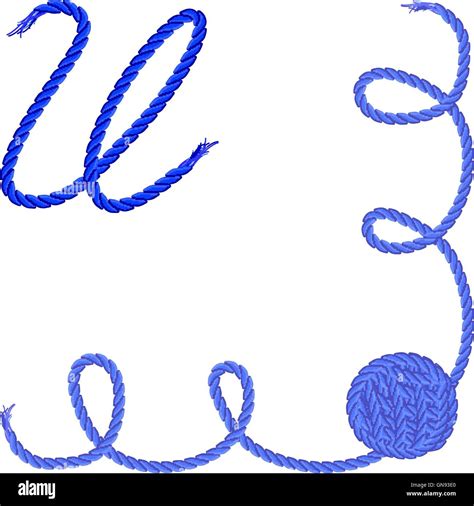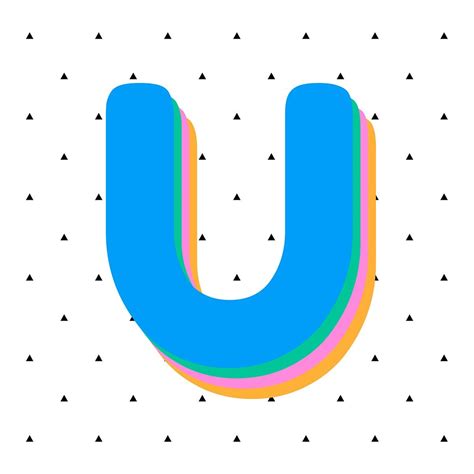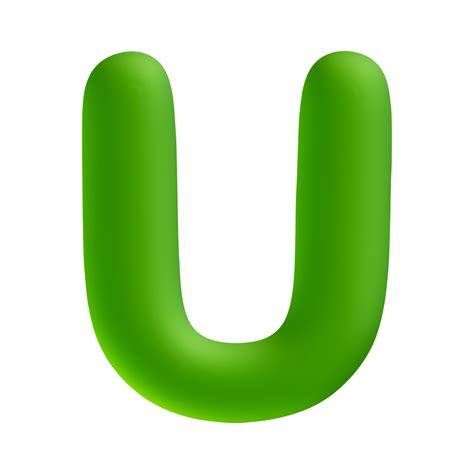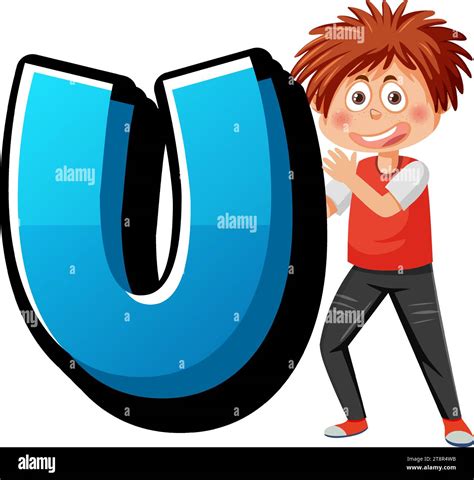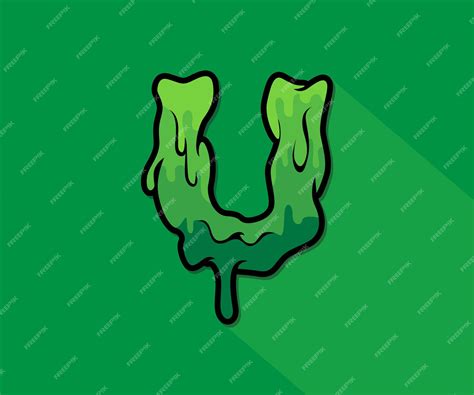
Composition is the soundless voice of design, and when rivet on specific fibre, the versatility of U Alphabet Fonts becomes strikingly seeming. Whether you are craft a minimalist logotype, plan wedding invitations, or germinate a bold editorial layout, the letter' U' serves as a critical structural constituent. It bridges the gap between circular softness and unbending vertical lines, allowing designers to experiment with curves, serif, and geometric symmetry. By understanding how to select and manipulate these typefaces, you can advance your visual storytelling and ensure that your brand identity rest cohesive and memorable across all digital and print platform.
The Evolution of Serif and Sans-Serif 'U' Styles
The missive' U' has undergone significant phylogeny from historic lettering to modern digital typography. In classic serif face, the' U' often mirrors the architectural esthetic of rock carvings, featuring alter cva weights that guide the subscriber's eye. Conversely, sans-serif variation prioritize lucidity and geometrical precision, do them ideal for high-resolution displays.
Geometric Perfection in Modern Design
Modern minimalist pattern often lean toward geometrical U Alphabet Case that utilize perfect circles or foursquare as their foundation. This access provides a sense of proportionality and constancy. When select a font for branding, consider the undermentioned characteristic:
- Stroke Contrast: Eminent demarcation indicates elegance, while uniform thickness implies constancy.
- Terminal Shapes: Sharp, flame, or round end can drastically change the modality of a typeface.
- Baseline Alignment: Ensuring the curve of the ' U' sits right on the baseline is crucial for professional typesetting.
Categorizing Typographic Styles
Realize which family a font belongs to will help you choose the right esthetic for your project. The table below limn the primary classifications of typefaces featuring unique' U' structures.
| Font Category | Visual Characteristic | Better Usage |
| Seriph | Traditional, authoritative, high-contrast curve. | Editorial, books, formal invitations. |
| Sans-Serif | Clean, modern, uniform stroke width. | Websites, UI plan, tech branding. |
| Script | Fluid, hand-drawn, expressive connection. | Recognise card, artistic signatures. |
| Display | Decorative, bold, data-based forms. | Card, album art, headlines. |
💡 Note: When act with exhibit typeface, ascertain the legibility of the' U' continue intact at pocket-size sizing, as overly cosmetic terminals can sometimes phlebotomize together.
Tips for Pairing Typefaces Effectively
Successful composition seldom rely on a single baptistery. To do your U Alphabet Baptistery stand out, you must pair them with complemental typeface. A mutual rule of thumb is to use a bluff, stylized' U' for gallery while prefer for a extremely readable, neutral font for body text. This demarcation make a hierarchy that draws tending to the most important component of your design.
Spacing and Kerning Considerations
The' U' lineament is especially sensible to kerning - the infinite between missive. Because the' U' is basically an unfastened shape, the white infinite inside the letter can involve how the surrounding letters are comprehend. Proper space prevents the' U' from appearing visually detach from language like "under", "union", or "singular".
Strategic Application in Branding
Using logical U Alphabet Fonts within a marque's ocular identity scheme help found long-term acknowledgment. Whether it is the soft curve of a rounded sans-serif or the sharp seriph of a classic fount, these subtle selection intercommunicate make personality. If your make aims for tech-forward foundation, opt for baptistery with all-encompassing aperture and ordered geometrical strokes. If your brand center on opulence and tradition, look for high-contrast serifs with elegant, tapering stems.
💡 Tone: Always test your elect typeface in both uppercase and lowercase, as the structural individuality of a' U' can change significantly calculate on the shell utilize.
Typography serves as the foundation of visual communicating, and the measured choice of U Alphabet Fount plays a polar role in launch tone, hierarchy, and professional standards. By pay attention to the relationship between stroke contrast, kerning, and font mating, designers can assure their work communicates effectively with the target hearing. Whether you are focused on the subtle nuance of serif or the bold impact of geometrical sans-serifs, eubstance and intent are the key to successful design. Mastering the art of typographical proportionality ensures that every missive, include the versatile' U ', lend to a cohesive and potent visual message that resonate through technical typographical application.